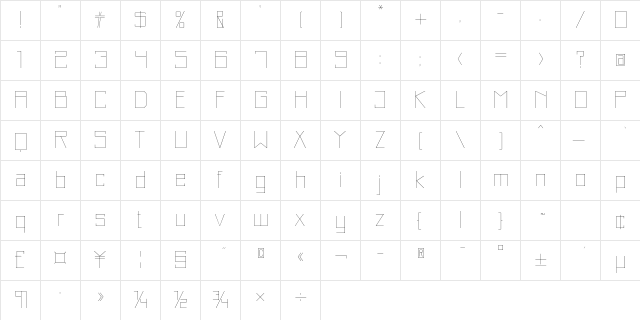
Just Square LT Std Cyrillic Ultra Thin
| Foundry | Linotype GmbH |
| Designer | Zoran Kostic |
Design Context for Just Square LT Std Cyrillic Typeface
Just Square LT Std Cyrillic offers clean, dependable letterforms without strong stylistic allegiance, making it a practical choice for designers who need flexibility. Its slender proportions lend an understated elegance to any composition.